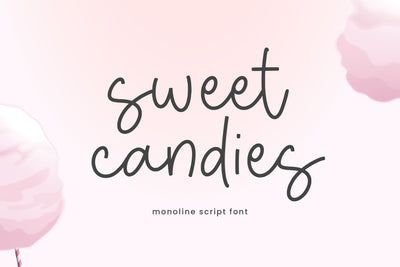
Sweet Candies - Monoline Script font
Sweet Candies - Monoline Script font , which was created with great care and specially created for you
Sweet Candies is perfect for product packaging, branding project, megazine, social media, wedding, or just used to express words above the background.